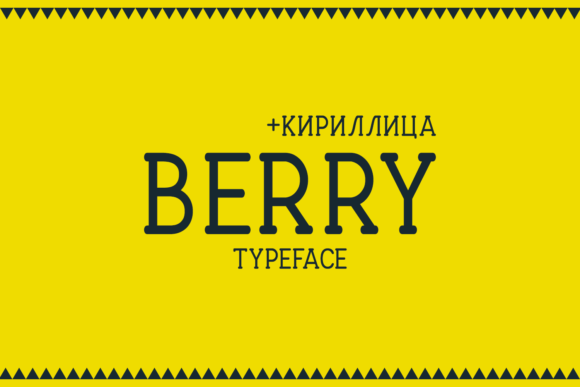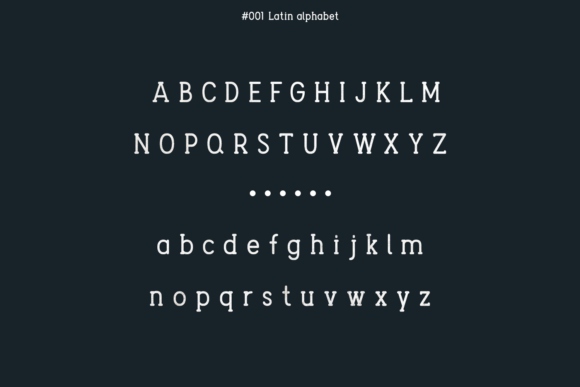
About Berry Font
Berry is a minimalistic slab serif font. No matter the topic, this font will be an incredible asset to your fonts’ library, as it has the potential to elevate any creation. Add this lovely freebie to your creations and take your designs to the next level!